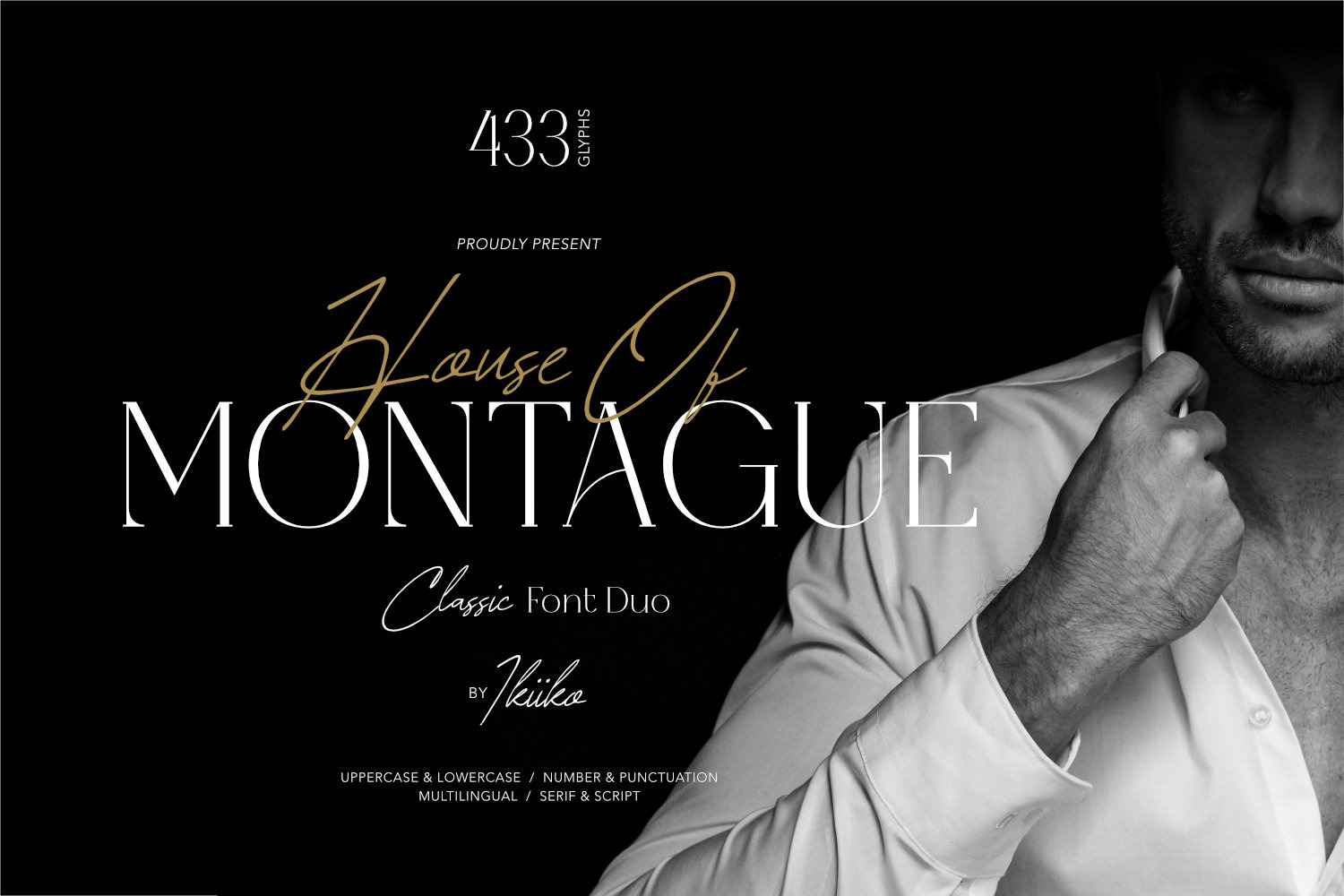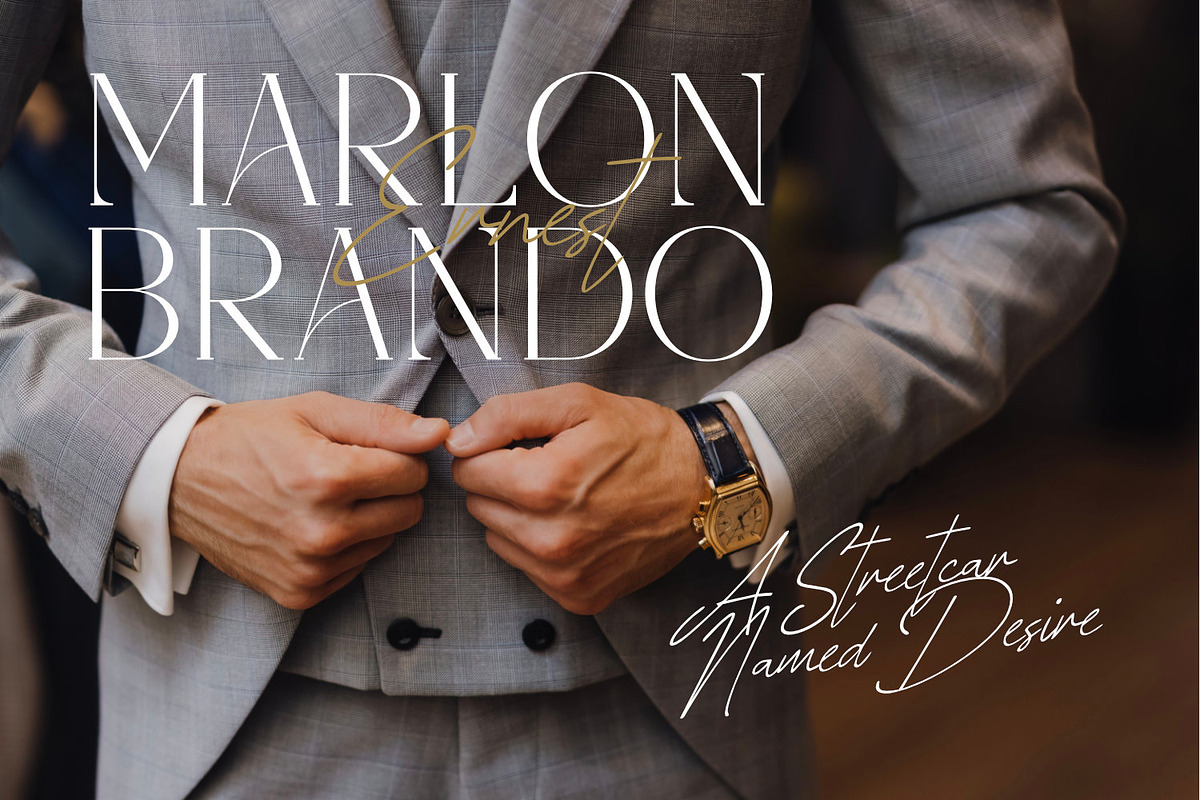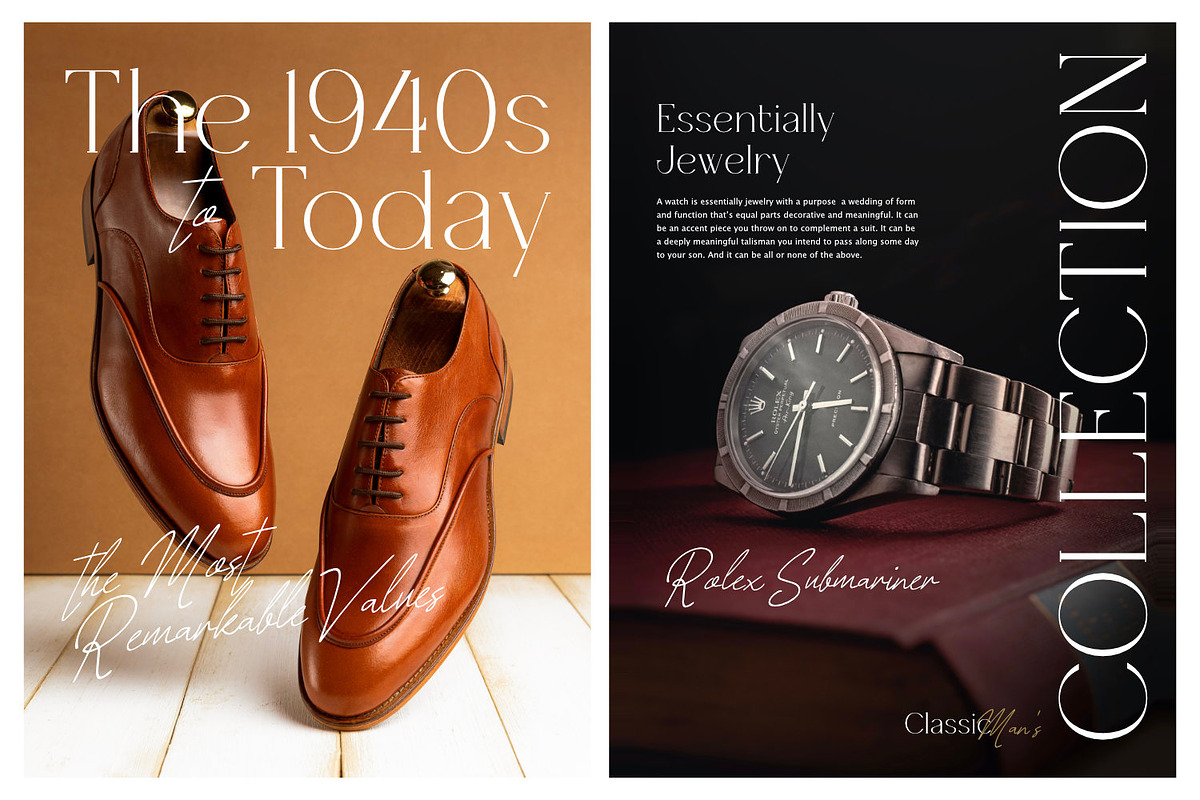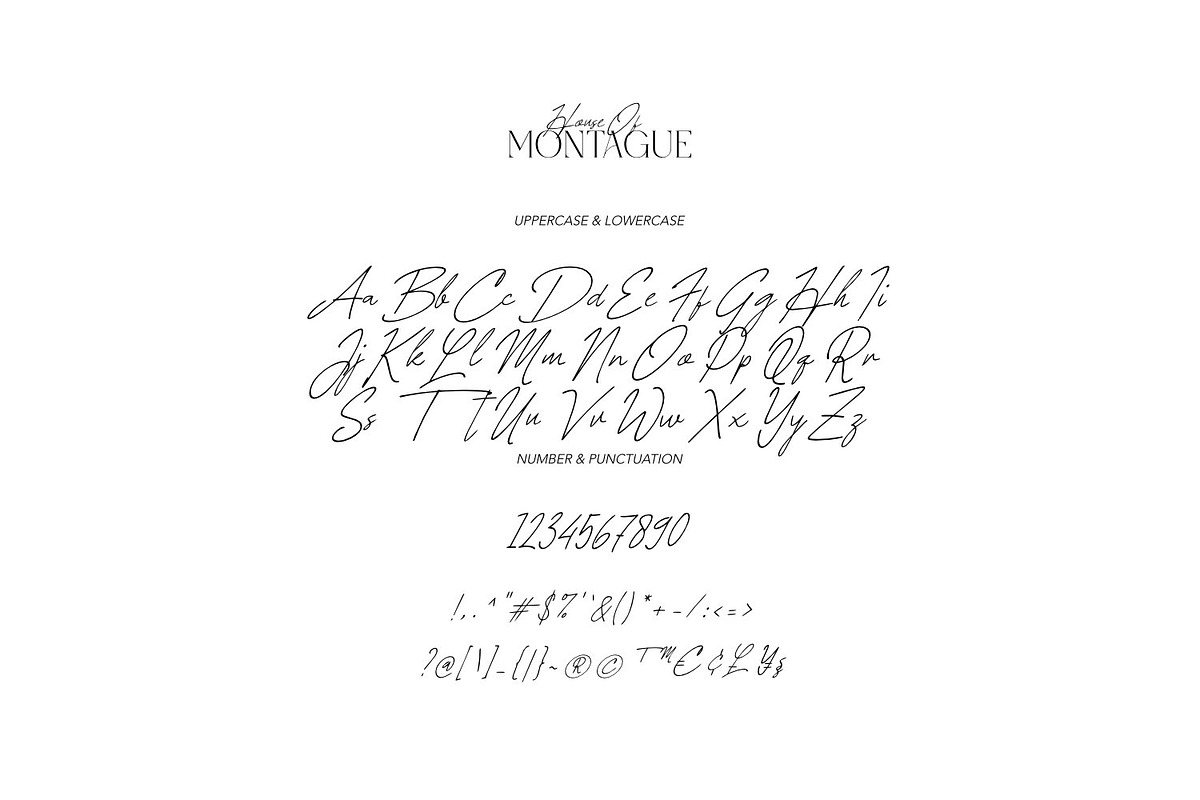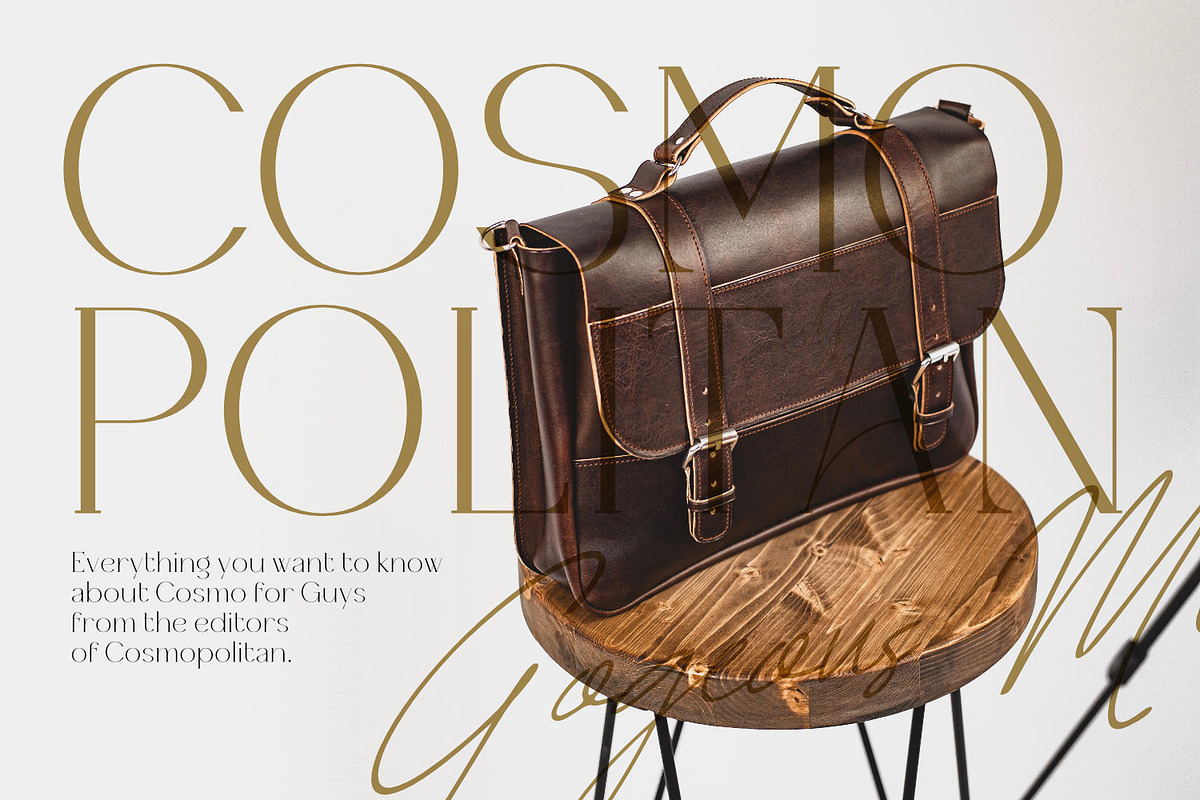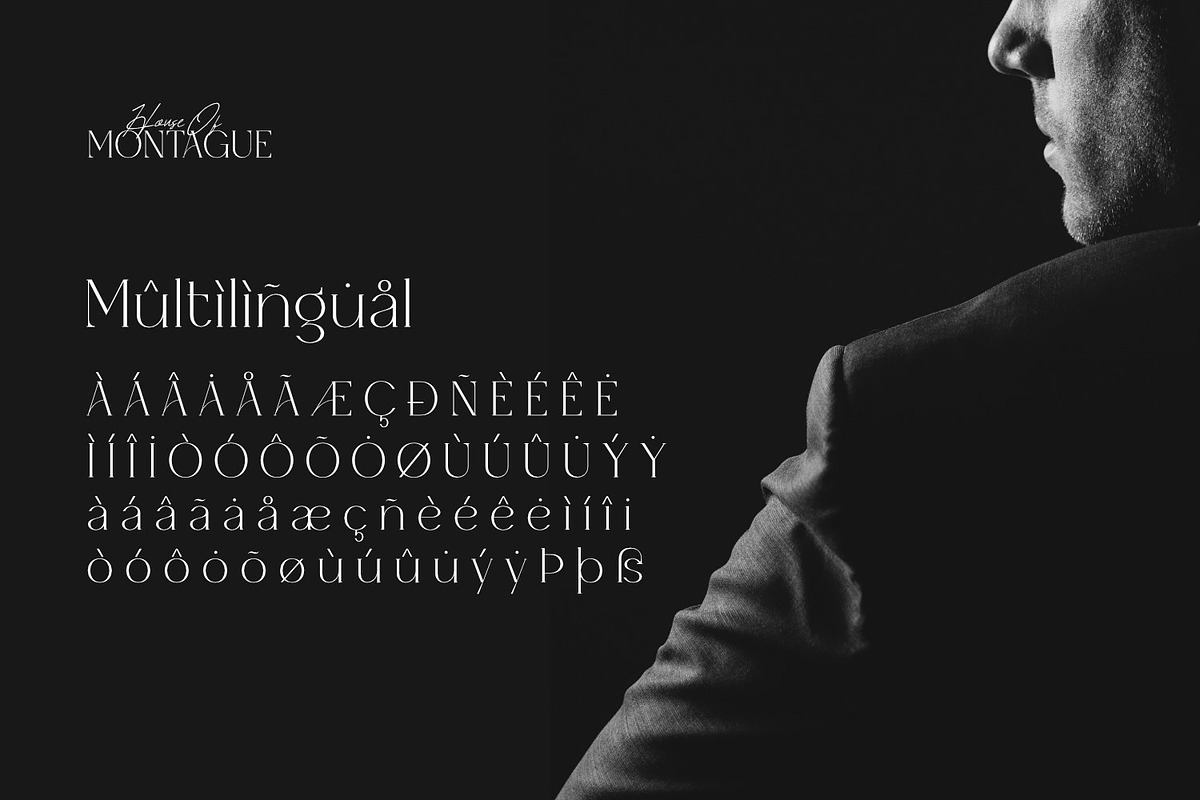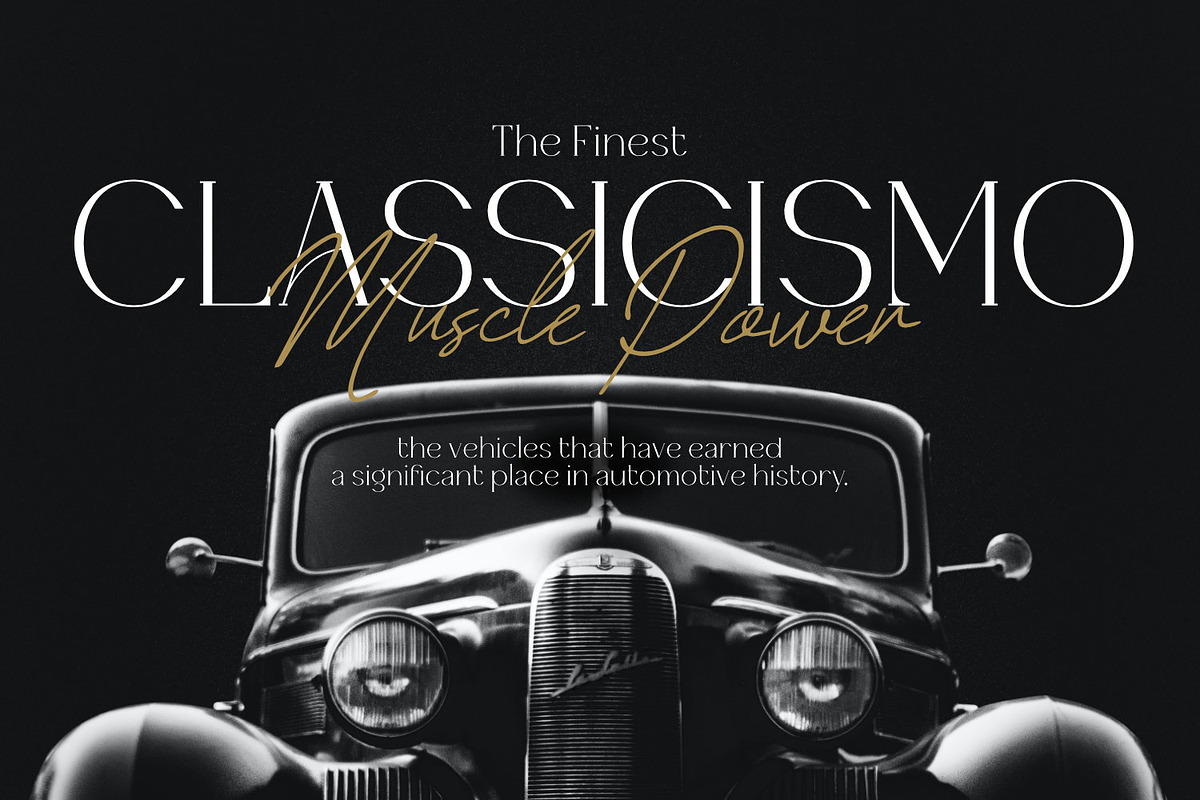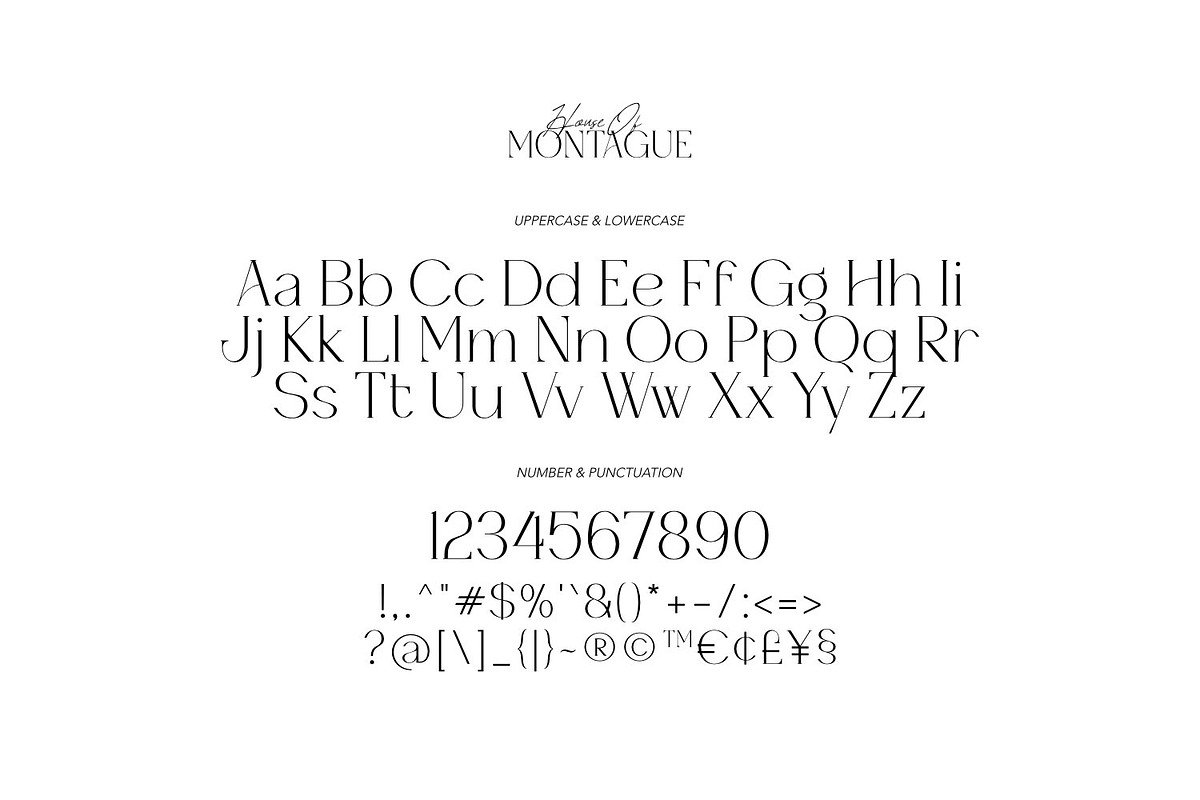
House of Montague - Classic Font Duo
Introducing House of Montague - Classic Font Duo, created by ikiiko.
House of Montague is a traditional font for the classic serif type with the addition of a script type. A simple font, with a thin size, adds an elegant and classy impression. This typeface is perfect for an elegant logo, branding, travel promotion, layout magazine, beauty product, packaging product, quotes, or simply as a stylish text overlay to any background image.
- Regular & Script
- Number & Punctuation